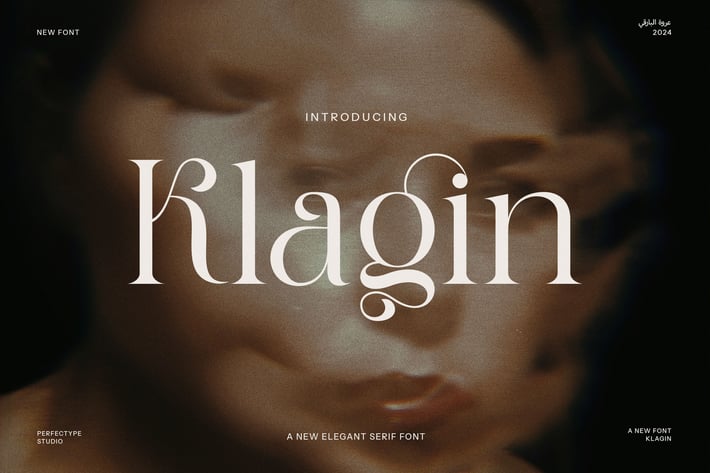
Klagin Elegant Serif Font
Klagin is an elegant serif font that perfectly blends classic charm with modern design. Therefore, it offers a refined style that works well in many creative projects. Whether you are designing branding materials or editorial layouts, this font will add a touch of sophistication and clarity to your work.
First, the unique form of Klagin ensures high readability, even at smaller sizes. In addition, it balances bold strokes with gentle curves, creating harmony and grace in every letter. Because of this, it works well for both headlines and body text, making it highly versatile.
Moreover, Klagin is ideal for various projects such as branding, invitations, packaging, and editorial designs. It brings a professional and timeless feel to logos and print materials. Also, the stylish serif details give a classic yet fresh look to any text.
Some key features include:
- Elegant serif design with clean lines
- Balanced letter shapes for clear readability
- Suitable for branding, editorial, and print use
- Perfect for headlines and body text
- Adds sophistication and modern style
- Works great for logos, invitations, and packaging
- Enhances both digital and print projects
Furthermore, Klagin pairs well with sans-serif fonts, creating strong visual contrast. As a result, it suits luxury brands, fashion magazines, and formal invitations. Thanks to its sleek design, Klagin delivers a polished and professional look without complexity.
In conclusion, Klagin is a stylish serif font that brings elegance and clarity to your creative work. For this reason, it perfectly balances tradition and modernity, making it an excellent choice for designers.
First, the unique form of Klagin ensures high readability, even at smaller sizes. In addition, it balances bold strokes with gentle curves, creating harmony and grace in every letter. Because of this, it works well for both headlines and body text, making it highly versatile.
Moreover, Klagin is ideal for various projects such as branding, invitations, packaging, and editorial designs. It brings a professional and timeless feel to logos and print materials. Also, the stylish serif details give a classic yet fresh look to any text.
Some key features include:
- Elegant serif design with clean lines
- Balanced letter shapes for clear readability
- Suitable for branding, editorial, and print use
- Perfect for headlines and body text
- Adds sophistication and modern style
- Works great for logos, invitations, and packaging
- Enhances both digital and print projects
Furthermore, Klagin pairs well with sans-serif fonts, creating strong visual contrast. As a result, it suits luxury brands, fashion magazines, and formal invitations. Thanks to its sleek design, Klagin delivers a polished and professional look without complexity.
In conclusion, Klagin is a stylish serif font that brings elegance and clarity to your creative work. For this reason, it perfectly balances tradition and modernity, making it an excellent choice for designers.